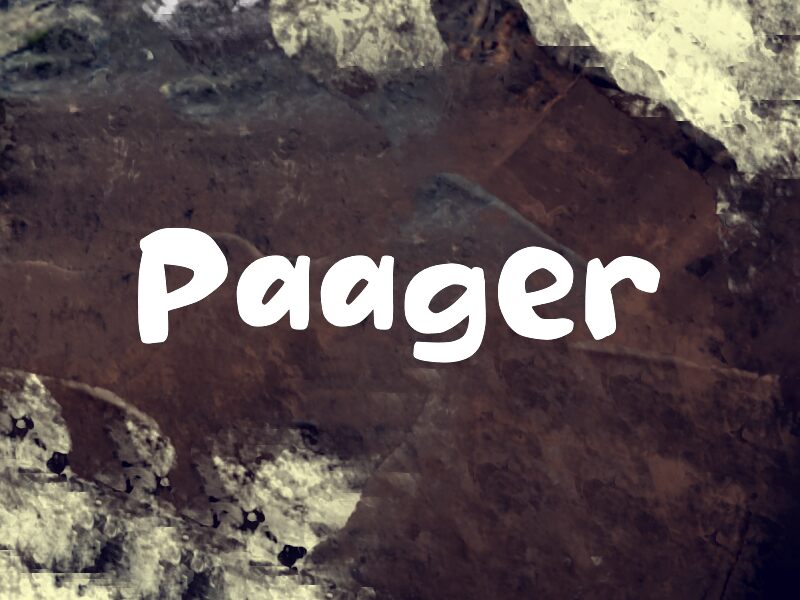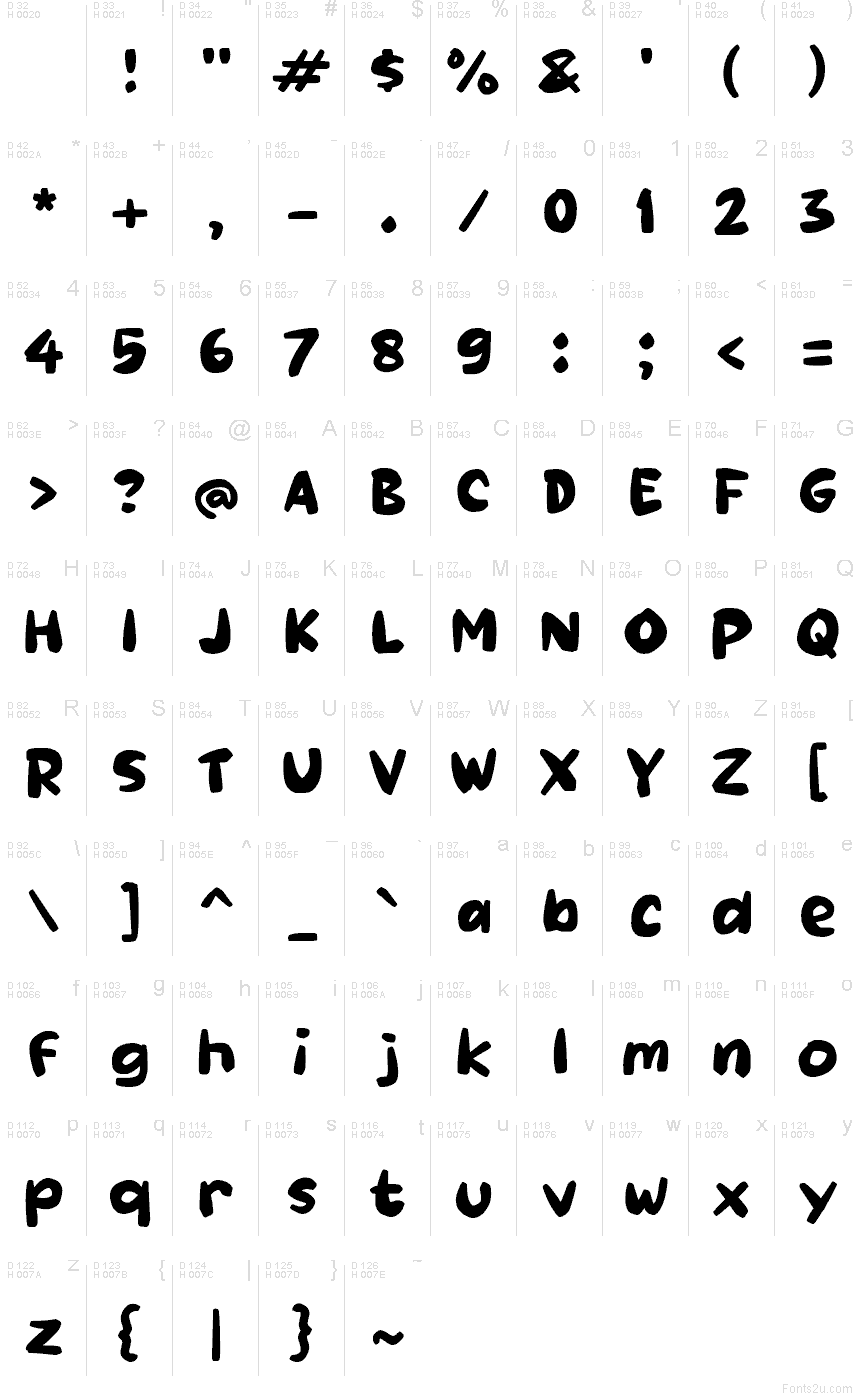
Paager
Paager font by wep is a free cartoon display font with the bounce and squish of a marker-drawn doodle. Its rounded strokes, chunky weight, and slightly uneven rhythm give every word a friendly, hand-lettered wobble that feels like it was scribbled straight onto a school notebook or comic panel. The letters sit close and cozy, creating bold, inky word shapes that instantly read as playful and approachable.
Using Paager, you can bring a warm, kid-friendly energy to children’s book covers, classroom posters, birthday invitations, comic captions, YouTube thumbnails, and playful logos. This free font shines when used big and bold, letting those soft curves and thick strokes really show. For body text, pair Paager with a clean sans serif so the headlines can do the expressive, cartoon-style shouting.